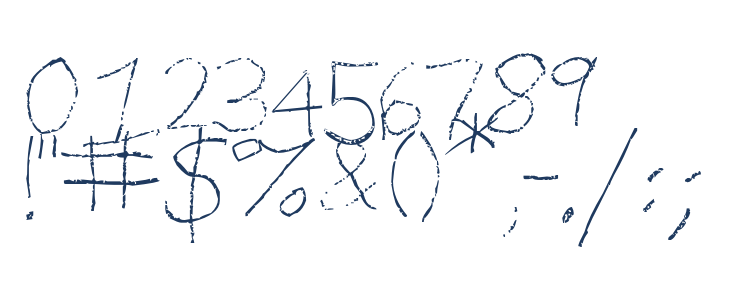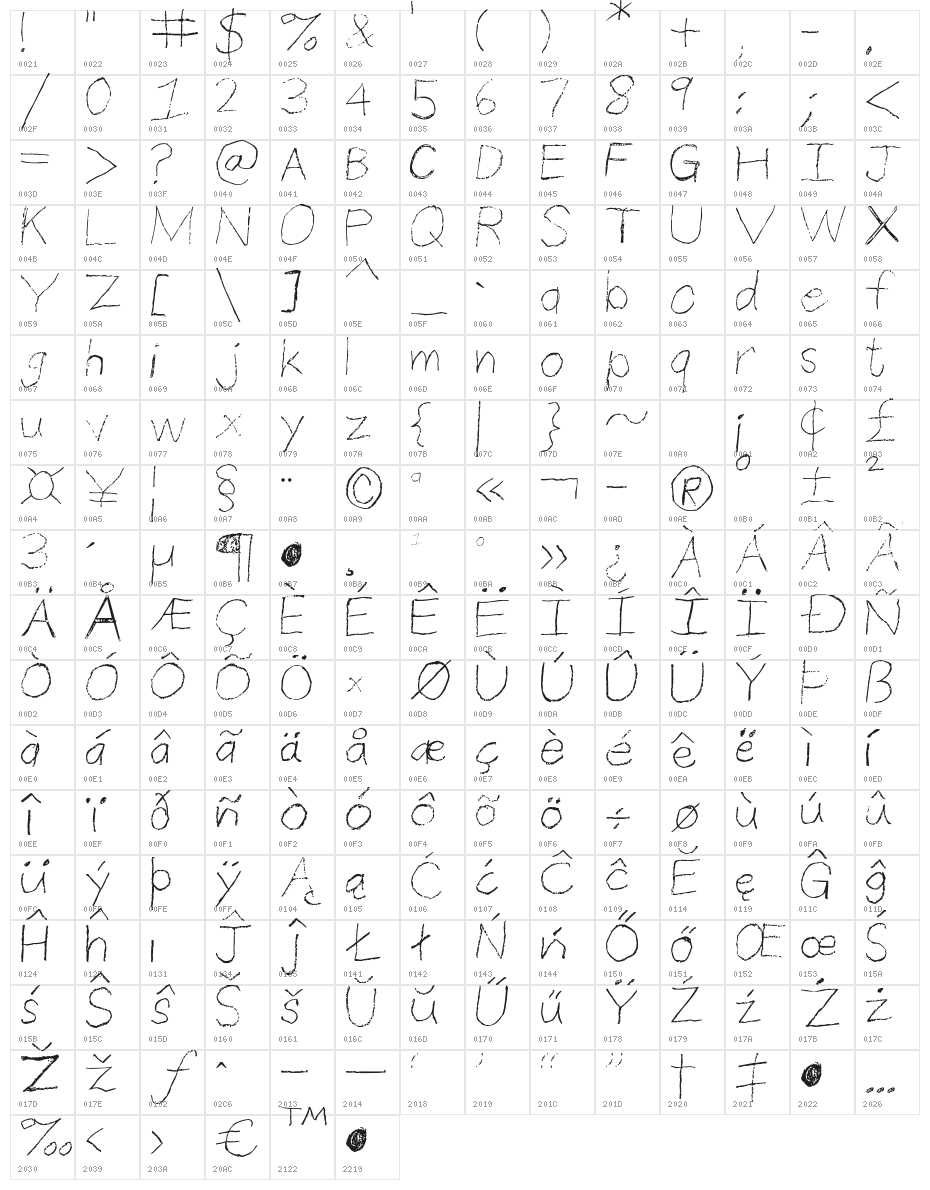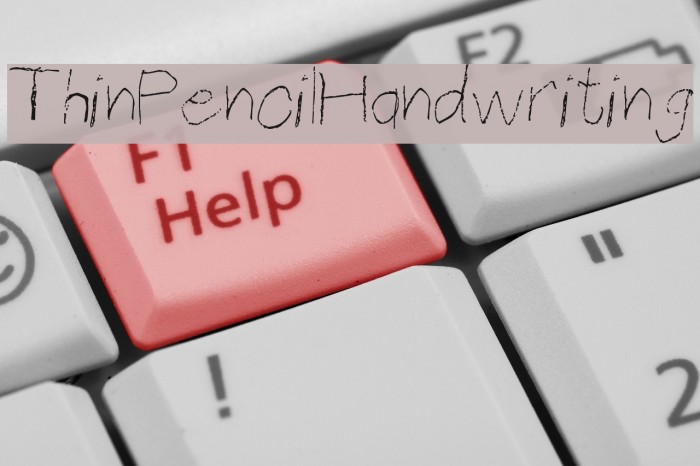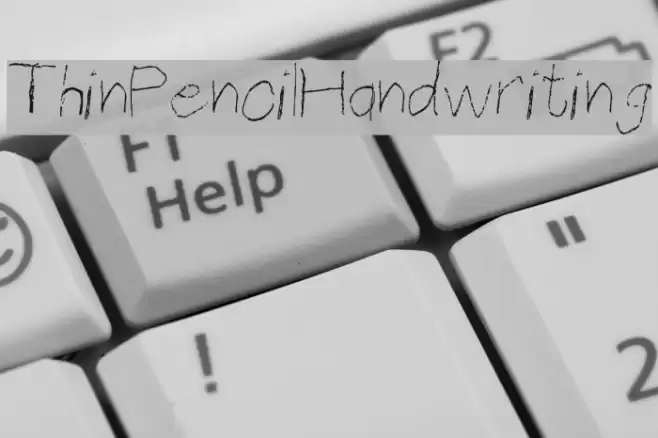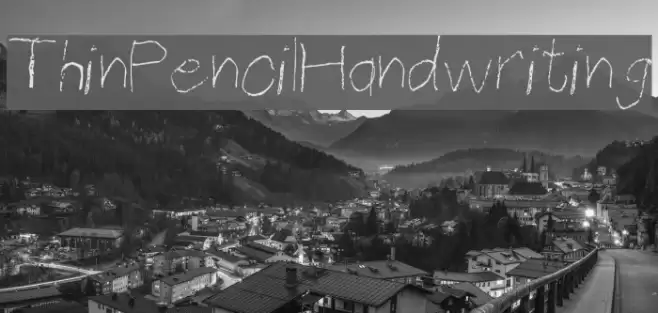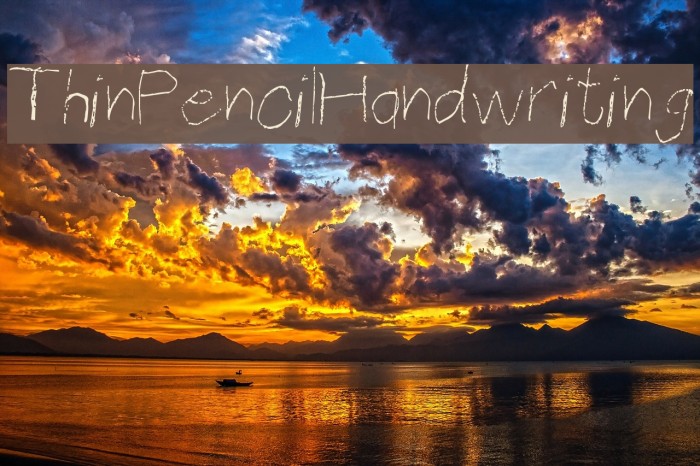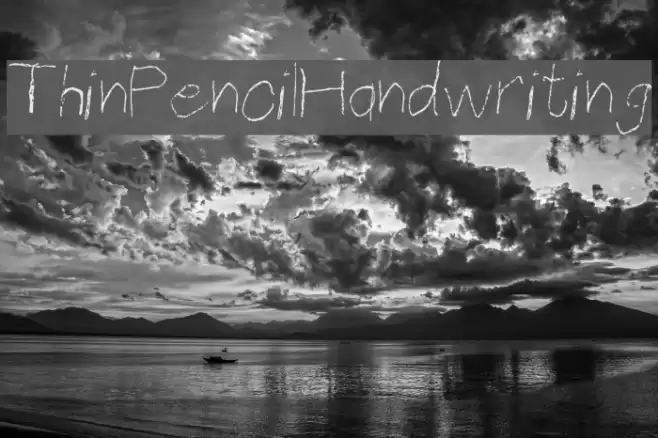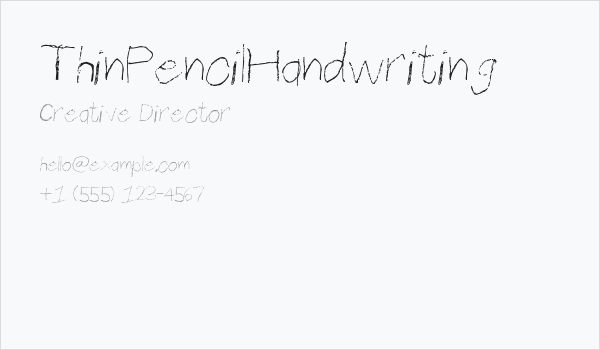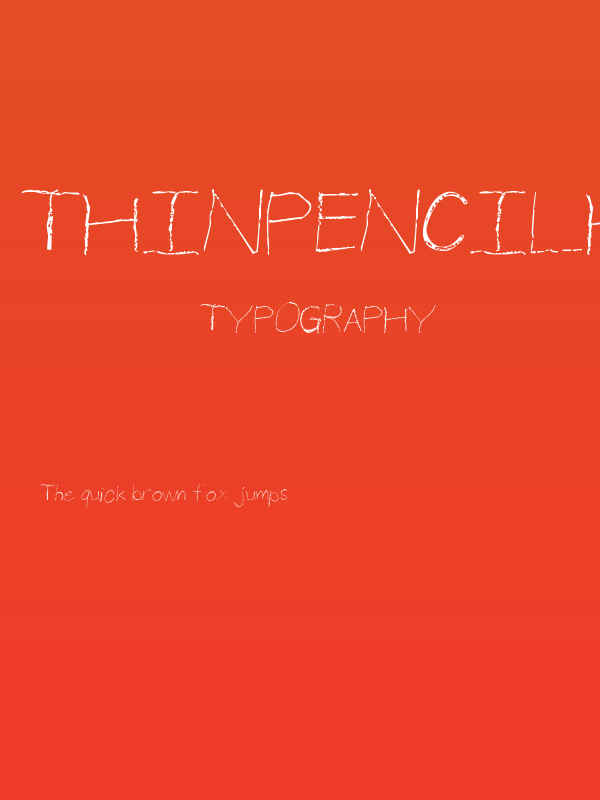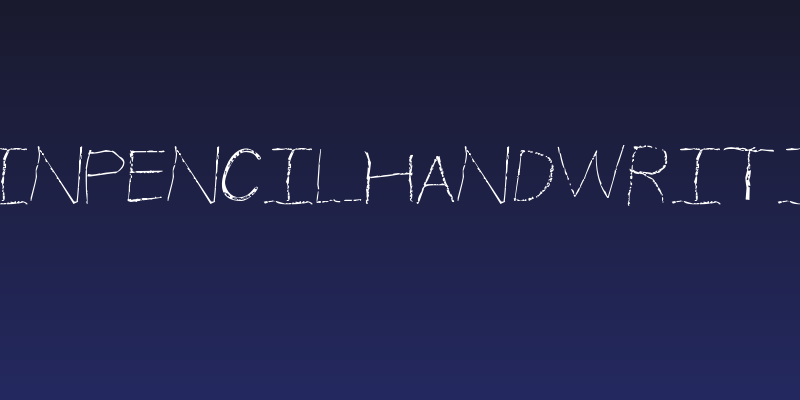
ThinPencilHandwriting Font
ThinPencilHandwriting Description
This font exudes a casual and organic feel, reminiscent of handwriting with a pencil. The characters are thin and slightly irregular, giving them a personal and authentic touch. The strokes appear sketchy and textured, as if drawn with a light hand. The uppercase and lowercase letters maintain a consistent style, with a playful yet legible appearance. Numbers and special characters follow the same handwritten aesthetic, making the font versatile for various informal applications. Its unique texture and style make it stand out, offering a distinct look that is both approachable and artistic.
| Overall Style | Casual, Artistic |
| Use Case | Greeting cards, Personal notes, Creative projects |
| Proposed Projects | Ideal for personal notes, greeting cards, children's books, and creative projects that require a handwritten touch. |